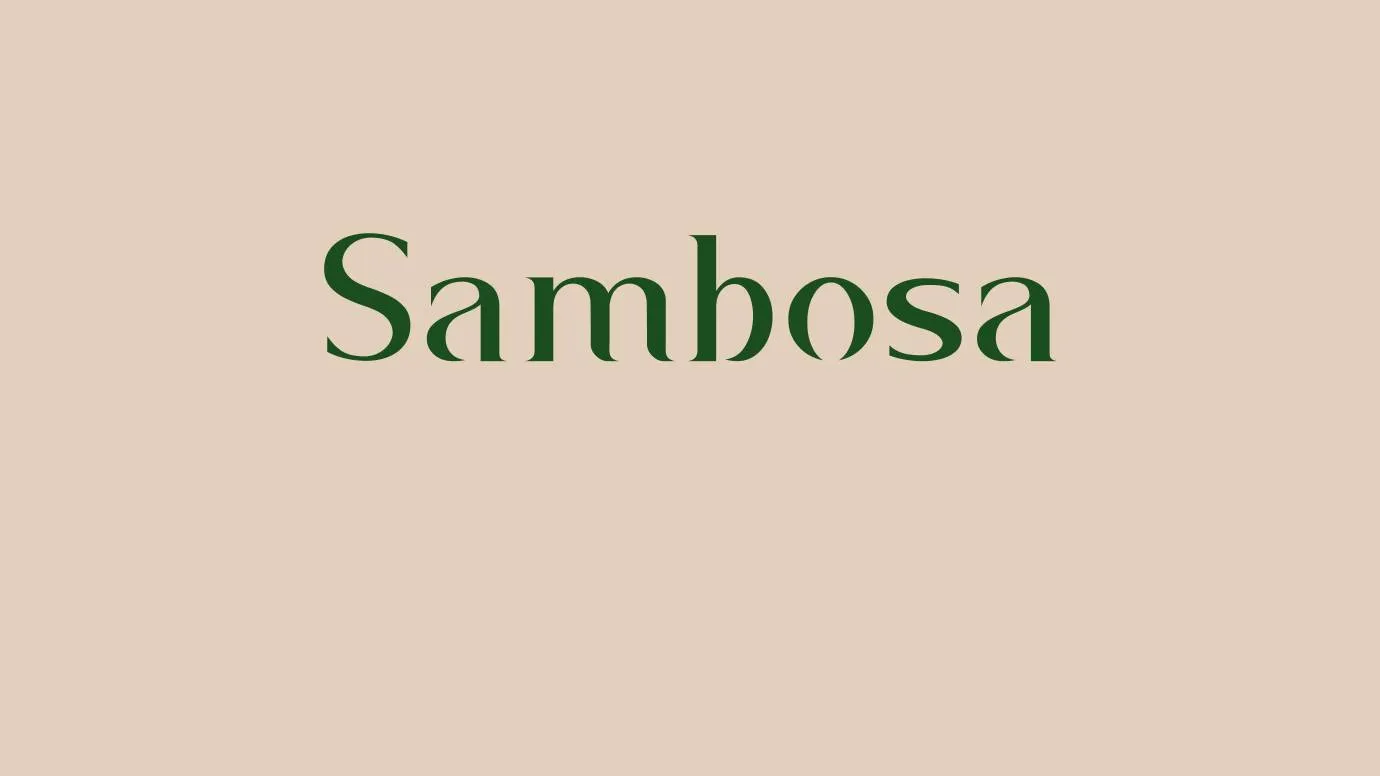
Sambosa is a very neat and clean typeface with high readability. Hanzel Graphic Studios designed this amazing font. It is a Sans-Serif Font and can be used on all operating systems.
Sambosa Font